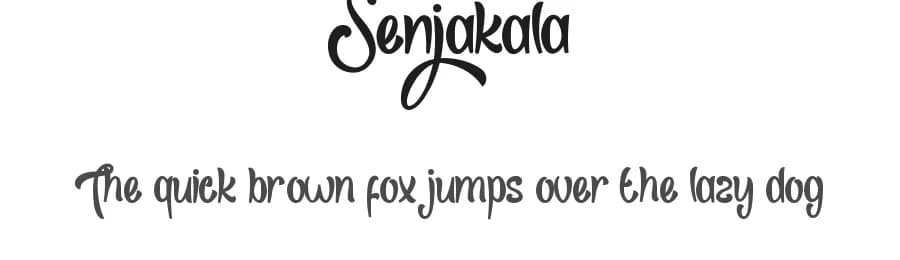
About Senjakala Font
- Bold, Elegant, Flowing, Script
| Designer | Shalsha & Sarah SP |
Senjakala Font is a script font that shines as a display or heading face. Pair it with a clean sans-serif or serif font for body text β the contrast creates a clear hierarchy while the two styles stay balanced and easy to read.
Senjakala Font
by VinType